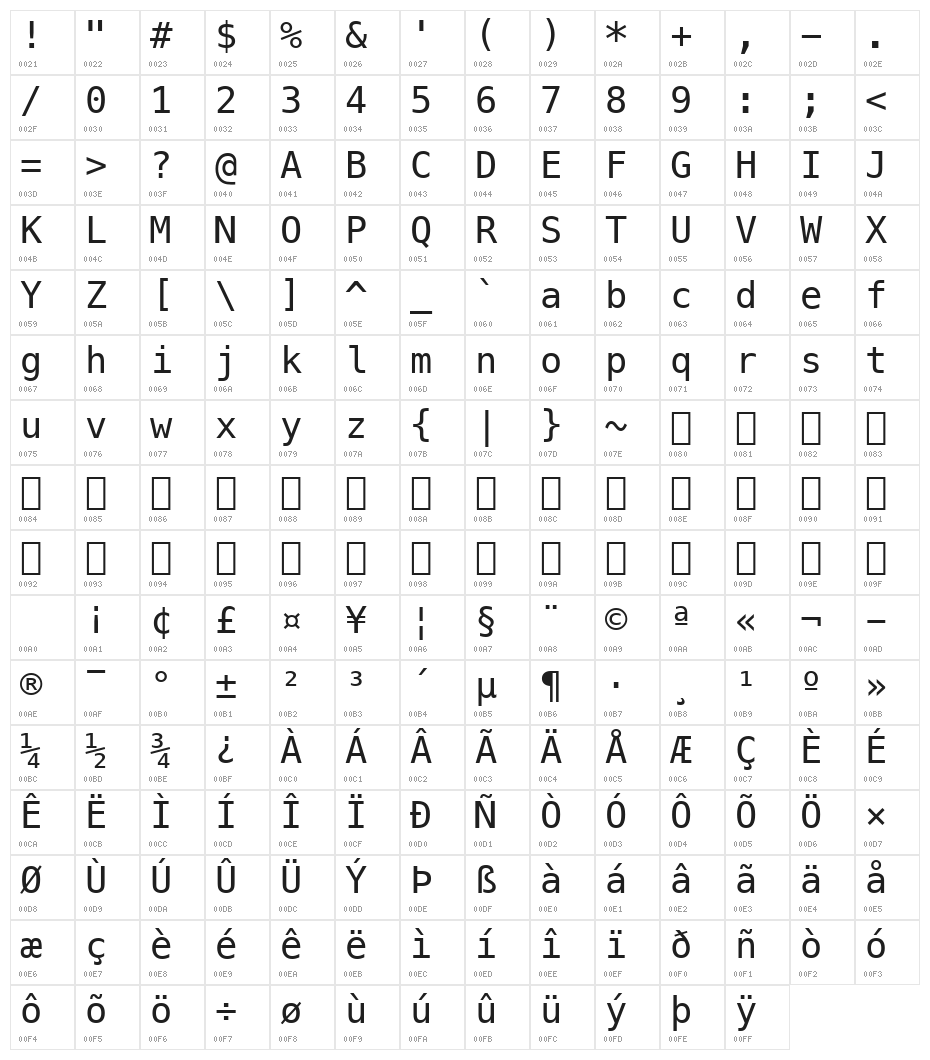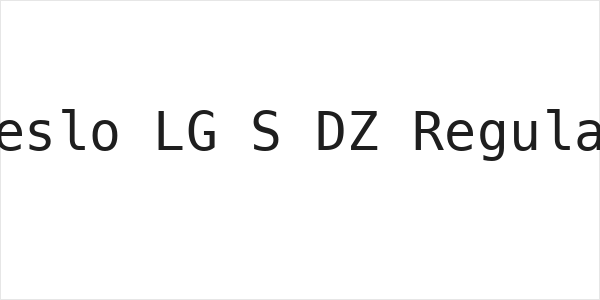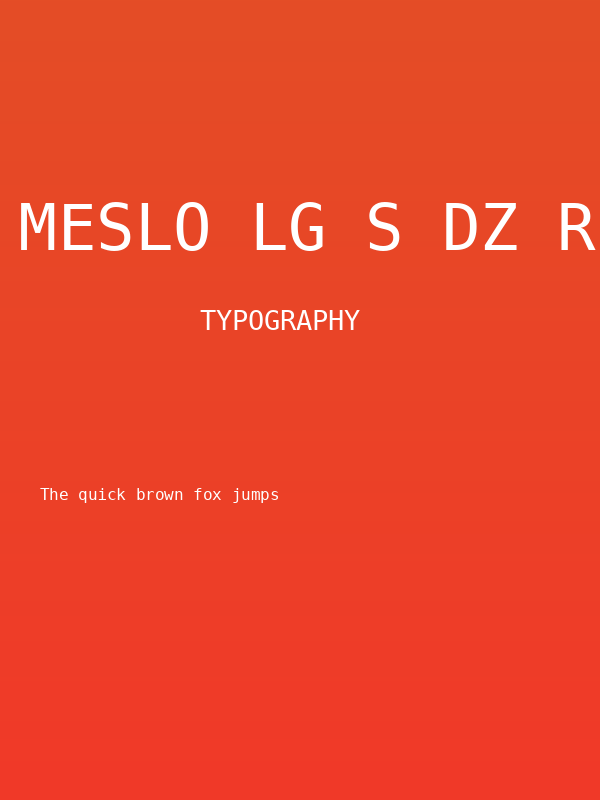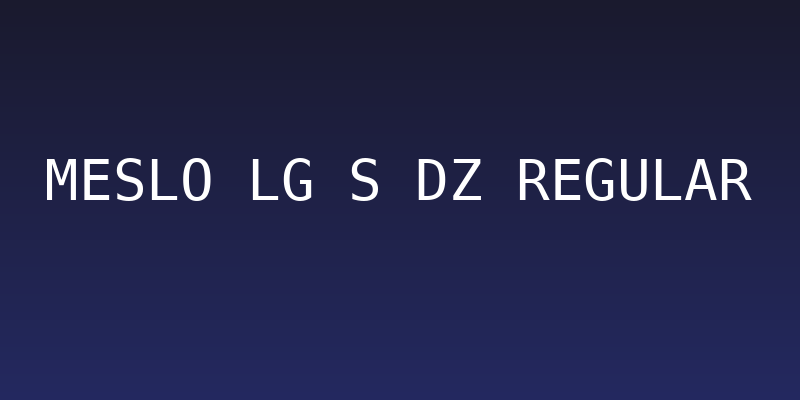
Meslo LG S DZ Regular Font
Meslo LG S DZ Regular Description
This font features a clean and modern design with monospaced characters, making it ideal for coding and technical documentation. The characters are evenly spaced, providing a uniform appearance that enhances readability. The font includes a full set of uppercase and lowercase letters, numerals, and a variety of special characters. Its simplicity and clarity make it suitable for both digital and print media. The strokes are consistent in weight, offering a balanced look that is neither too bold nor too light. This font is versatile and can be used in various applications where clarity and precision are required.
| Use Case | Coding, Technical documentation, Digital media |
| Proposed Projects | Perfect for coding environments, technical manuals, and any project requiring precise alignment. |